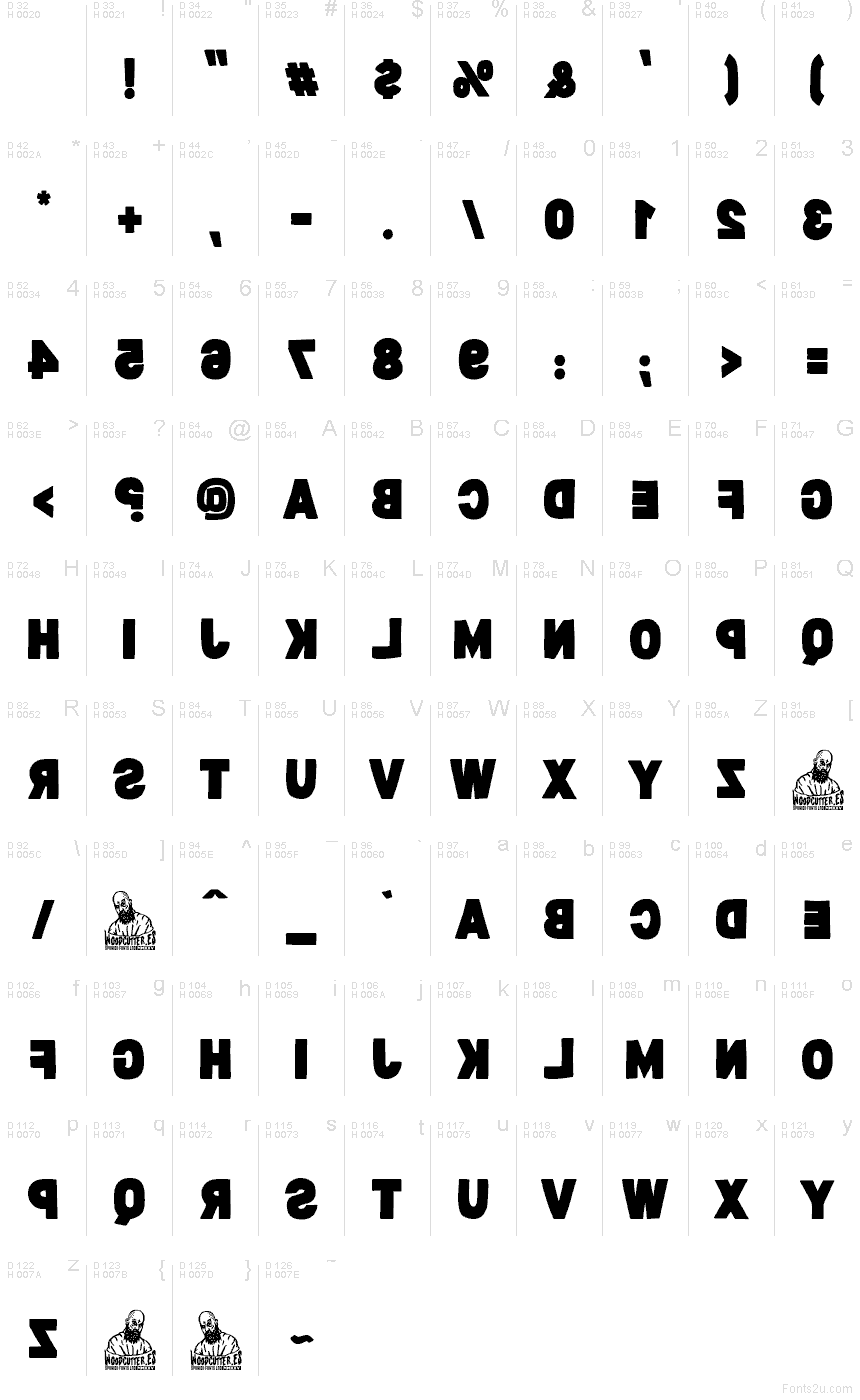
Hot And Loco Day
Hot and Loco Day font by Woodcutter is a free distorted display typeface with big, swollen letters that feel like they’ve been stretched and squashed by hand. The shapes are bold and inky, with uneven curves and wobbly sides that give every word a slightly unhinged, off-balance energy. It reads clearly, but there’s a constant sense of motion, as if the letters might melt, bounce, or slide right off the line.
Using Hot and Loco Day, loud messages hit even harder: gig posters, horror-comedy titles, underground zines, stickers, party flyers, and bold social graphics all benefit from its wild, chunky rhythm. This free font thrives at large sizes where its warped edges and dense silhouettes can really shout. Pair it with a simple condensed sans-serif in small text to keep the chaos focused and the message clear.